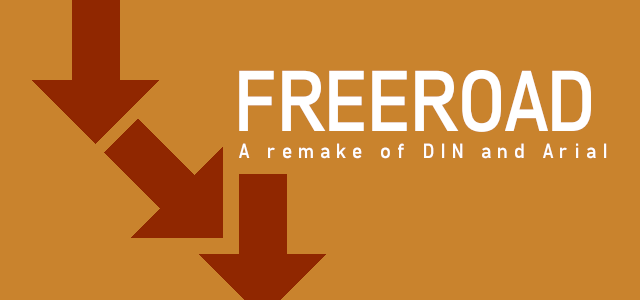
Preview and download Freeroad Font. Created by Jayvee Enaguas in Basic Sans serif styles with 100% Free license.
A remake of DIN and Arial UPDATED in v1.21 - Added in Light styles Licensed by: Creative Commons (CC-BY-SA 3.0) © GrandChaos9000. Some Rights Reserved. |